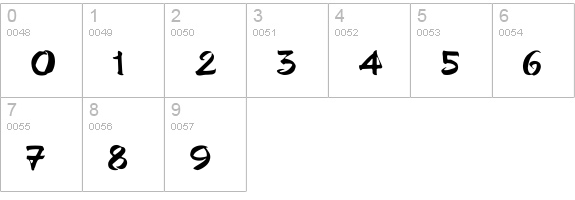
Fred-Semiscript Font Details
Fred-Semiscript font is a stylish and modern typeface that strikes the perfect balance between sophistication and playfulness. With its unique semi-script design, this font adds a touch of elegance to any project while still maintaining a sense of fun and creativity. The flowing curves and subtle slant of the letters give Fred-Semiscript a dynamic and engaging appearance, making it perfect for a wide range of design applications. What sets Fred-Semiscript font apart is that it is not only visually appealing but also versatile and easy to read. Whether you're designing a logo, creating a brand identity, or working on a poster or flyer, Fred-Semiscript is sure to make your text stand out and leave a lasting impression. Best of all, Fred-Semiscript font is available for free download at FontsMarket.com. So, whether you're a professional designer or a hobbyist looking to add a touch of flair to your projects, you can easily access this beautiful typeface and start using it right away. Don't miss out on the opportunity to elevate your designs with the elegant charm of Fred-Semiscript font.